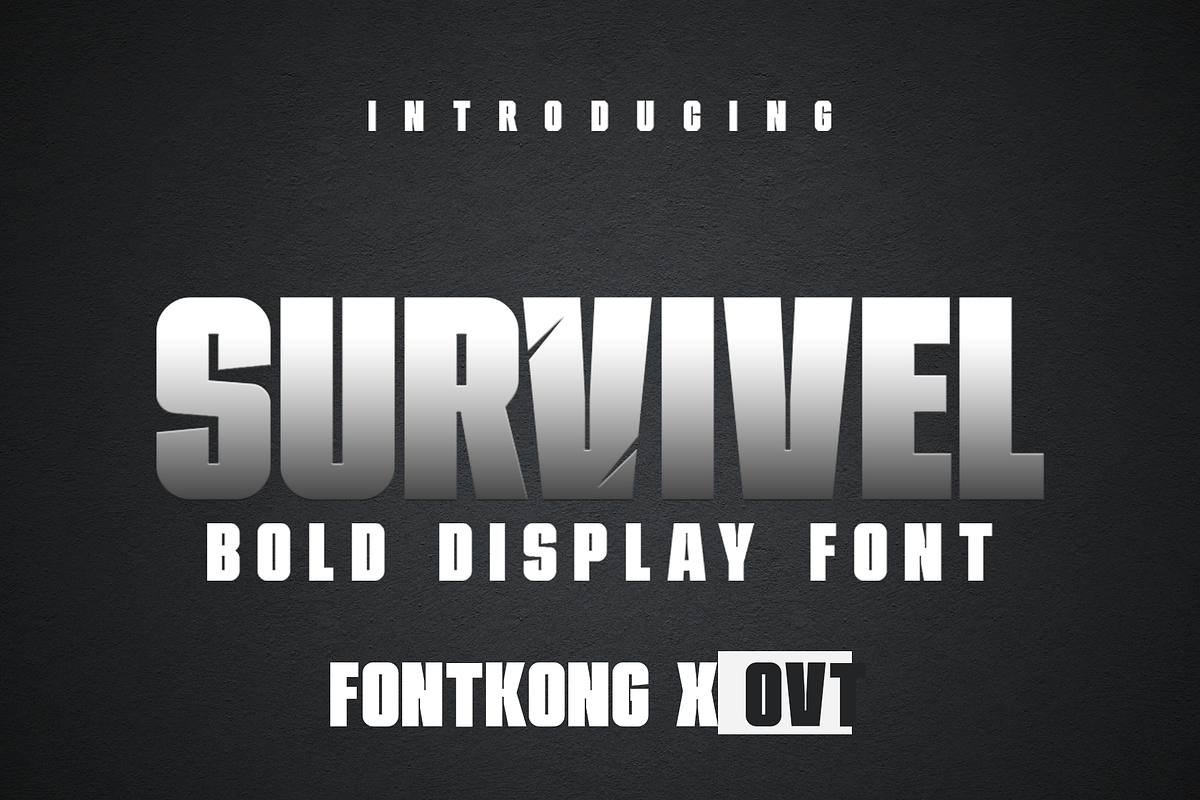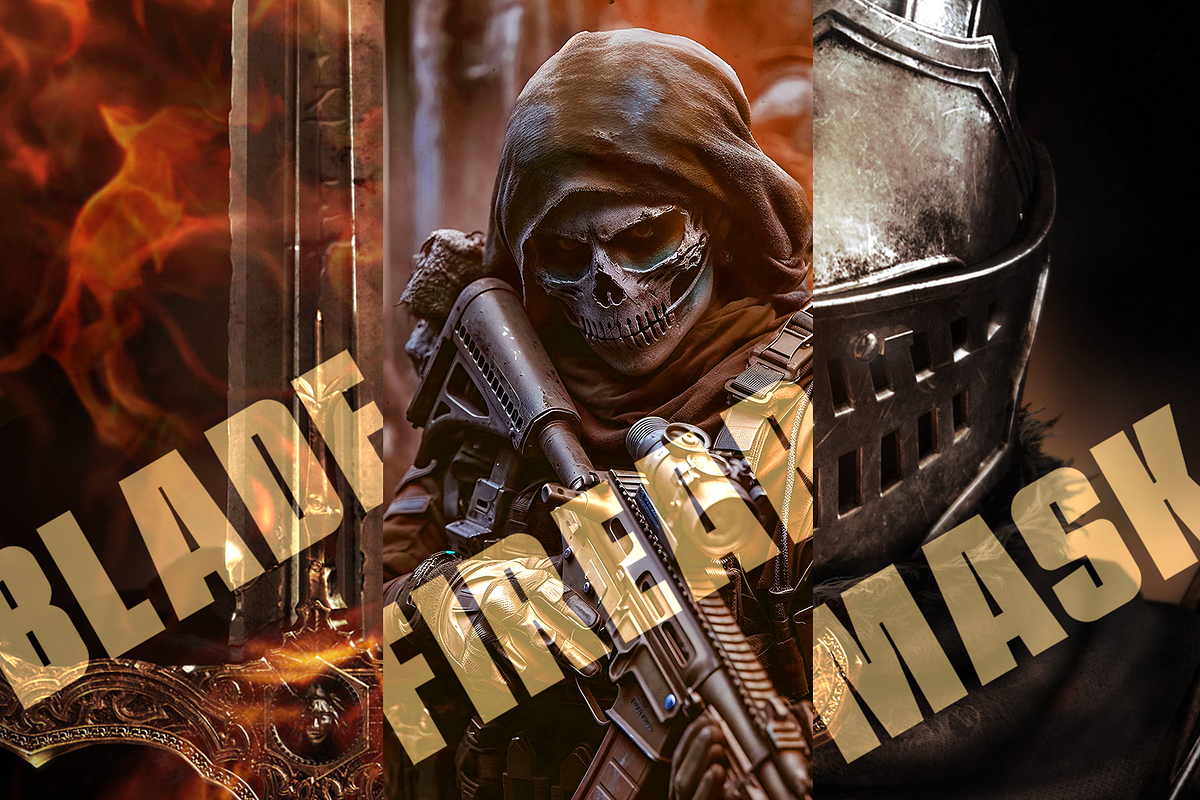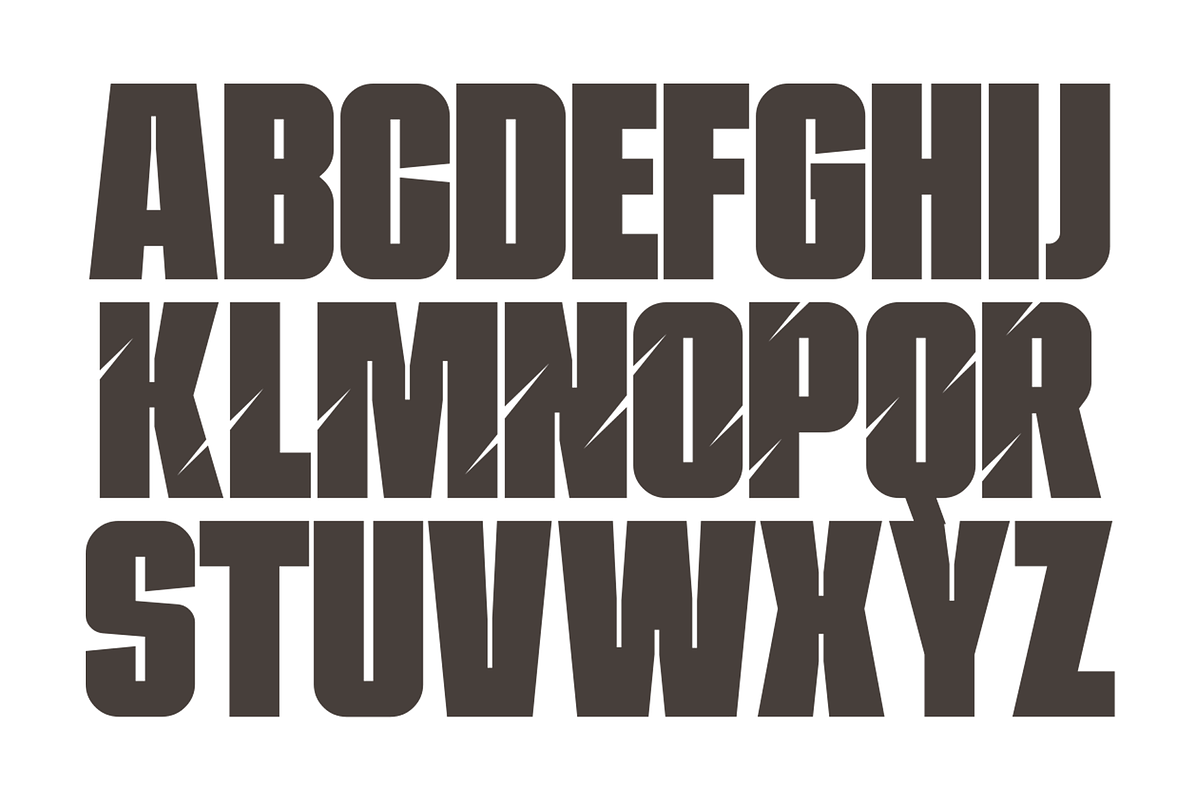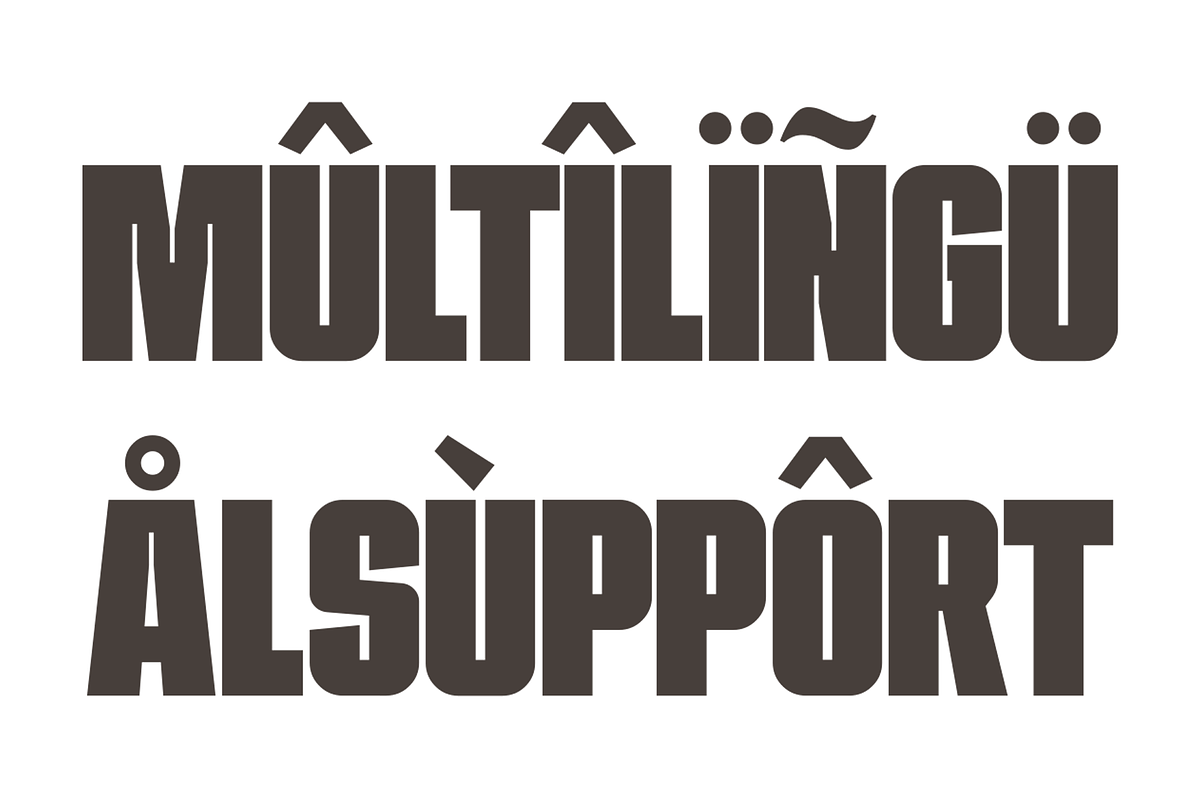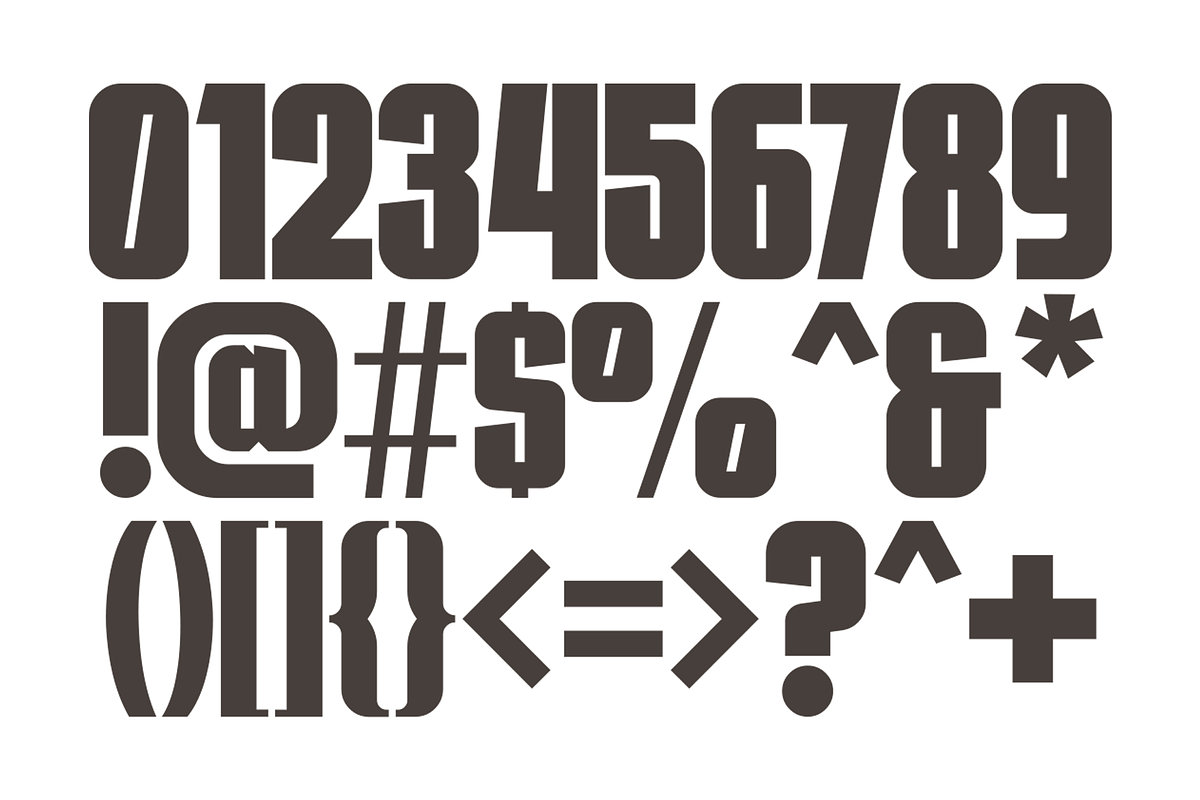
Survivel - Bold Display Font
Introducing "Survivel," a bold display font that commands attention and exudes strength. Perfect for headlines, posters, banners, and branding projects, "Survivel" is designed to make a powerful impact with its robust and assertive letterforms.
"Survivel" features a full set of uppercase letters, numerals, punctuation, and multilingual support. Its thick strokes and striking presence make it ideal for projects that require a bold statement. Whether you're designing for print or digital media, "Survivel" ensures your message stands out.
Embrace the daring and dynamic nature of "Survivel" to give your designs a modern and confident edge. Its bold aesthetics are perfect for sports branding, event posters, apparel design, and more.
"Survivel" is the go-to choice for designers seeking a bold and impactful display font.